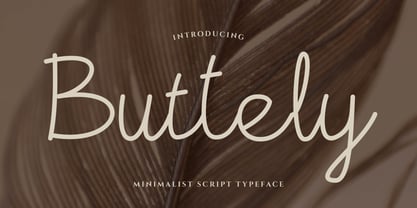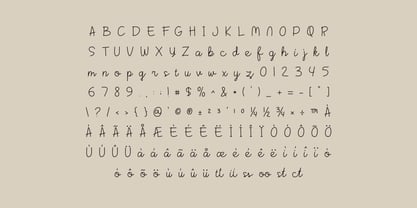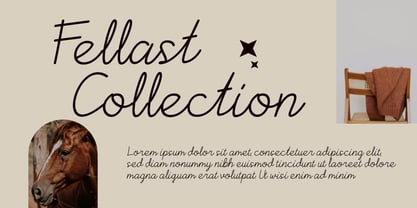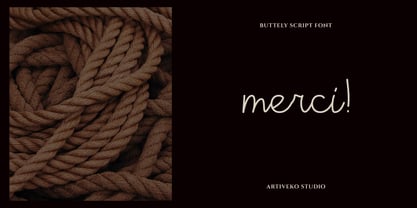
Buttely
by Artiveko
The Buttely Font Family was designed by Iwan Alwan and published by Artiveko. Buttely contains 2 styles.
Buttely is a clean and graceful script typeface designed for those who love simplicity with a soft, handwritten touch. With smooth curves, gentle flow, and an airy structure, Buttely brings subtle elegance to every project — perfect for branding, logo signatures, wedding stationery, social media, and minimalist packaging.
Crafted to be effortlessly stylish, Buttely includes a full set of uppercase and lowercase letters, multilingual support, and a selection of delicate ligatures and alternates to enhance natural writing flow. The thin strokes and open spacing give it a modern, breathable look while maintaining warmth and charm.
About Artiveko
Artiveko is a font design team based in Indonesia, comprised of several talented font designers who commenced their careers in the font design industry in 2020. With a dedicated focus on crafting fonts, the team members bring their collective expertise and passion to every project they undertake. Situated in Indonesia, Artiveko draws inspiration from the vibrant cultural landscape of the region, infusing their creations with unique flavors and aesthetics.The team's font collection encompasses a diverse range of styles, including serif, sans serif, handwritten, and script typefaces. Each typeface is meticulously crafted to meet the demands of modern design while offering versatility and functionality across various applications. Whether it's the classic elegance of serif fonts, the contemporary appeal of sans serif designs, the personal touch of handwritten scripts, or the expressive flourishes of script fonts, Artiveko ensures that every font reflects their dedication to quality and innovation.Artiveko's fonts have garnered recognition and acclaim, with their works being featured on prominent social media platforms like Creative Market. Through these platforms, the team has been able to connect with a global audience of designers and typographers, further amplifying their reach and influence in the industry. Their fonts are celebrated for their impeccable craftsmanship, attention to detail, and ability to elevate design projects with style and sophistication.As Artiveko continues to evolve and expand its font collection, the team remains committed to pushing the boundaries of typography and setting new standards of excellence. With a relentless focus on creativity, innovation, and collaboration, Artiveko strives to inspire and empower designers around the world with their distinctive and versatile font designs.